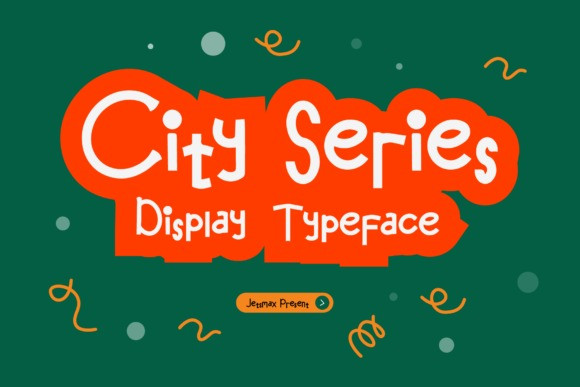
City Series Display Font
City Series is a cool and quirky display font. Whimsical and a bit quirky, this font will brighten up each of your designs. Add it confidently to your projects, and you will love the results.